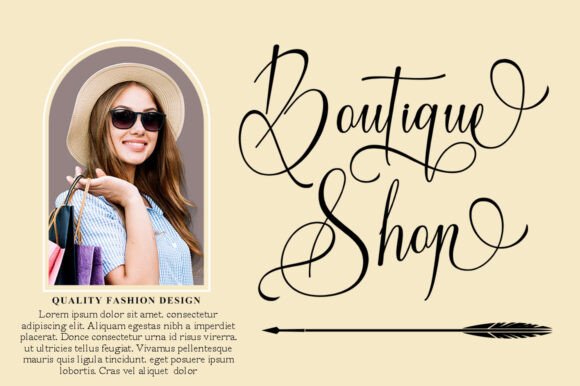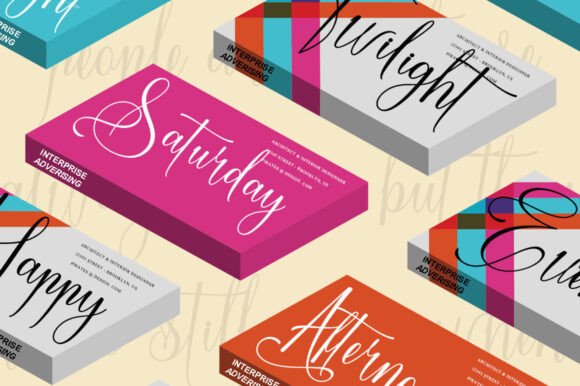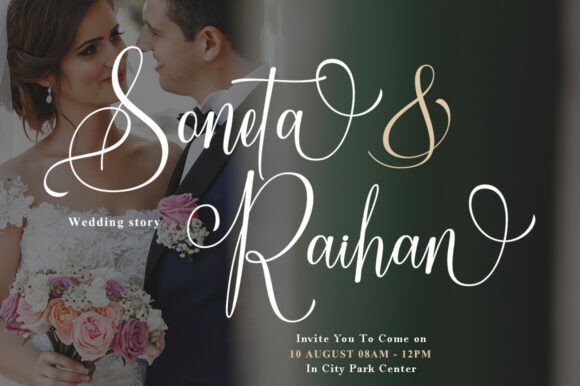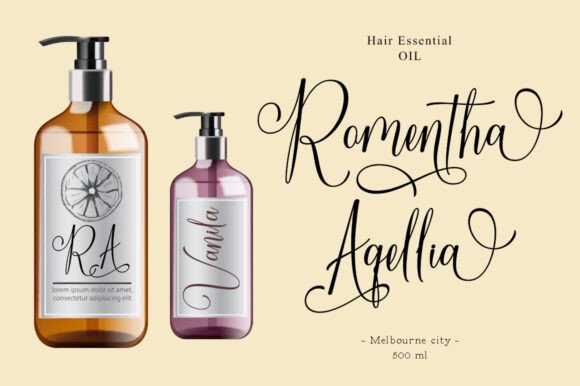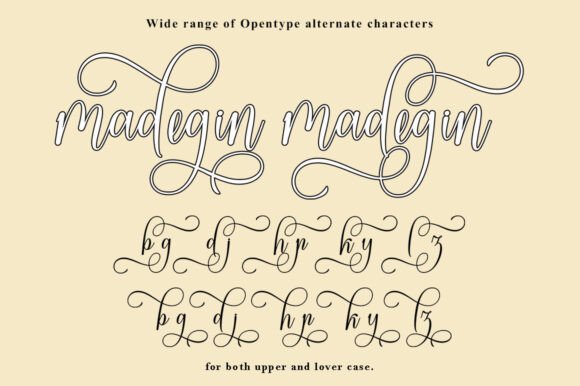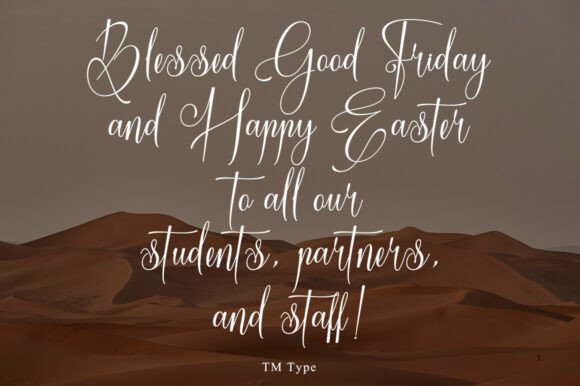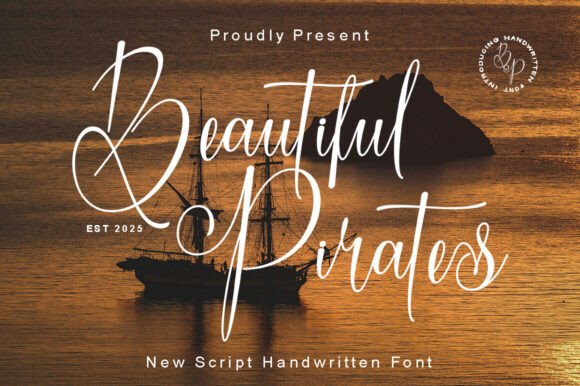
Discover the Charm of Beautiful Pirates Font: Elevate Your Designs with Elegant Handwritten Style
Are you a designer, crafter, or DIY enthusiast looking for a unique and stylish font to add a personal touch to your projects? Look no further than the Beautiful Pirates font, a stunning handwritten font that exudes elegance and sophistication. With its natural, flowing style, this beautiful pirates font is perfect for creating eye-catching invitations, logos, social media posts, and more.
Handwritten fonts have a way of adding a personal and human touch to any design. They evoke feelings of warmth, friendliness, and approachability, making them perfect for a wide range of applications. The Beautiful Pirates font takes this to the next level with its elegant cursive writing style, reminiscent of traditional calligraphy. Whether you’re designing a wedding invitation, a logo, or a social media post, this font is sure to make your project stand out.
Key Features of Beautiful Pirates Font
- Natural, flowing style: The Beautiful Pirates font features a smooth, connected script that mimics the look of handwritten writing.
- Elegant cursive writing: With its classic cursive style, this font is perfect for creating sophisticated and stylish designs.
- High-quality design: The font is carefully crafted with attention to detail, ensuring a high level of readability and legibility.
- Versatile: Use it for a wide range of applications, from invitations and logos to social media posts and more.
Beautiful Pirates font is a versatile font that can be used by designers, crafters, and DIY enthusiasts alike. Whether you’re creating digital designs or handmade crafts, this font is sure to add a touch of elegance and sophistication to your projects. Here are some ideas for using the Beautiful Pirates font:
- Wedding invitations: Create beautiful, one-of-a-kind wedding invitations that set the tone for a stylish and elegant wedding.
- Logos and branding: Use the Beautiful Pirates font to create a unique and memorable logo that reflects your brand’s personality and style.
- Social media posts: Add a touch of elegance to your social media posts and make them stand out from the crowd.
- DIY crafts: Use the font to create custom titles, headings, and labels for your handmade crafts, such as journals, planners, and cards.
Tips for Using Beautiful Pirates Font
To get the most out of the Beautiful Pirates font, here are some tips to keep in mind:
- Pair it with complementary fonts: Combine the Beautiful Pirates font with other fonts to create a unique and visually appealing design.
- Experiment with colors: Try out different colors and color combinations to find the perfect match for your design.
- Pay attention to spacing: Make sure to adjust the spacing between letters and words to ensure optimal readability.
The Beautiful Pirates font is a stunning handwritten font that adds a touch of elegance and sophistication to any design. With its natural, flowing style and elegant cursive writing, it’s perfect for designers, crafters, and DIY enthusiasts looking to create unique and stylish projects. Whether you’re designing invitations, logos, social media posts, or handmade crafts, this font is sure to make your project stand out. So why wait? Discover the charm of Beautiful Pirates font and elevate your designs today!